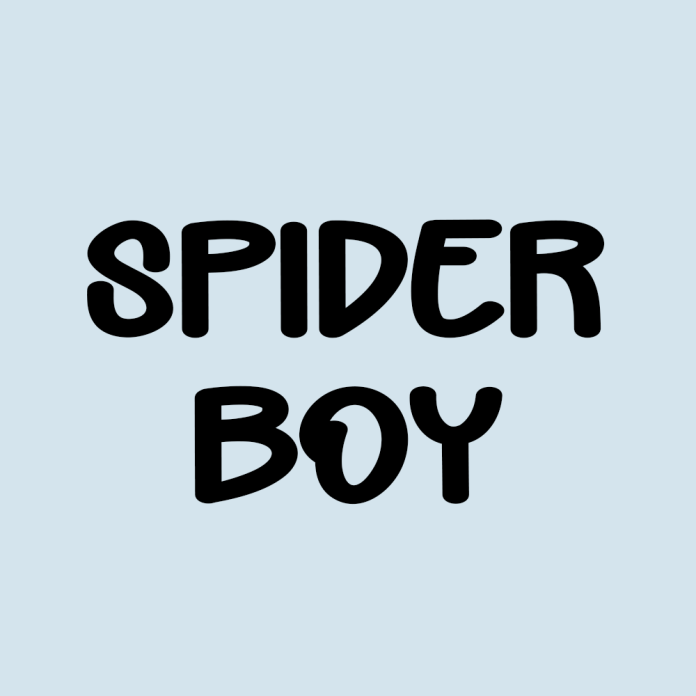
Spider Boy font is a simple handwritten font. This versatile font has a wide spectrum of applications ranging from greeting cards to headlines and is guaranteed to add a simple and natural feel to your next project!